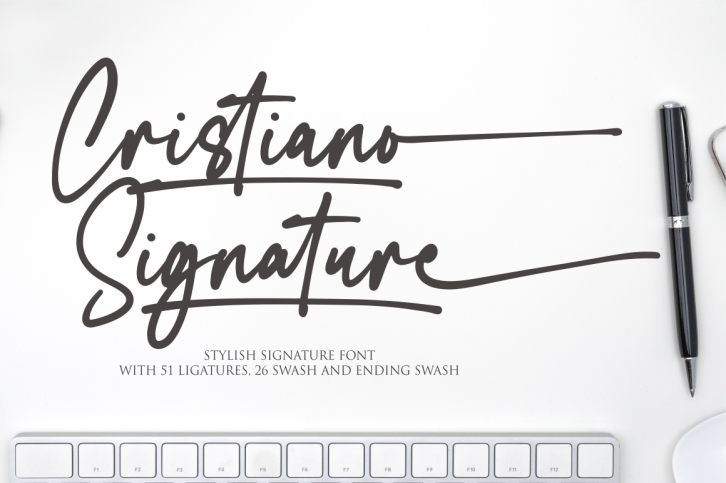
Cristiano Signature FONT Download
Cristiano Signature is a dazzling script font. This font is neatly crafted and highly detailed. Whatever the topic, this font will be a wonderful asset to your font library, as it has the potential to enhance any creation.